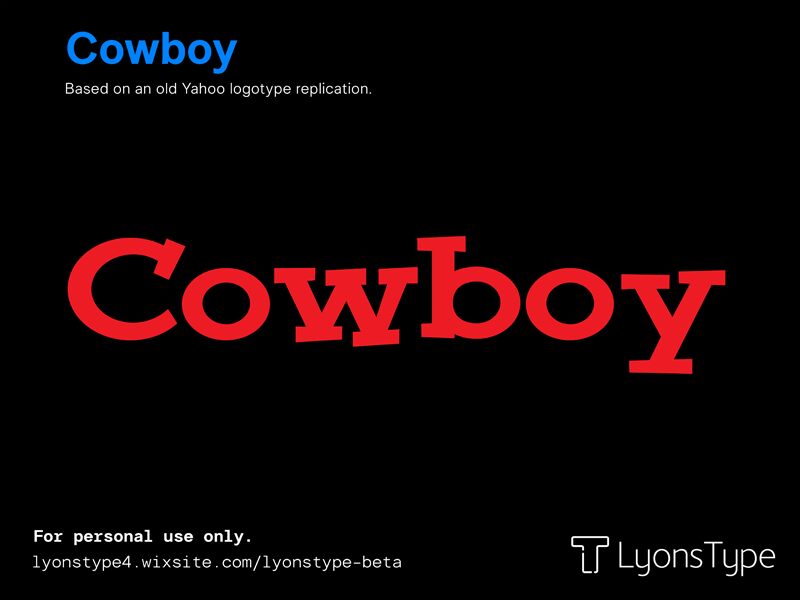
Cowboy Medium
Cowboy, created by LyonsType, is a playful and robust display font brimming with old-school charm. It harks back to the iconic Yahoo! logotype of the 1990s, infusing vintage flair into modern design projects. With its cartoon style and expanded form, Cowboy stands out for its friendly yet assertive presence. The font extends beyond its roots by incorporating lowercases, ligatures, discretionary ligatures, and stylistic alternates-a toolkit ripe for creative expression.
Cowboy's whimsical curves make it perfect for lighthearted branding, dynamic web headers, or eye-catching posters. Its inviting character suits informal communication while the nostalgic nod to internet lore can add a touch of retro appeal to any visual narrative.